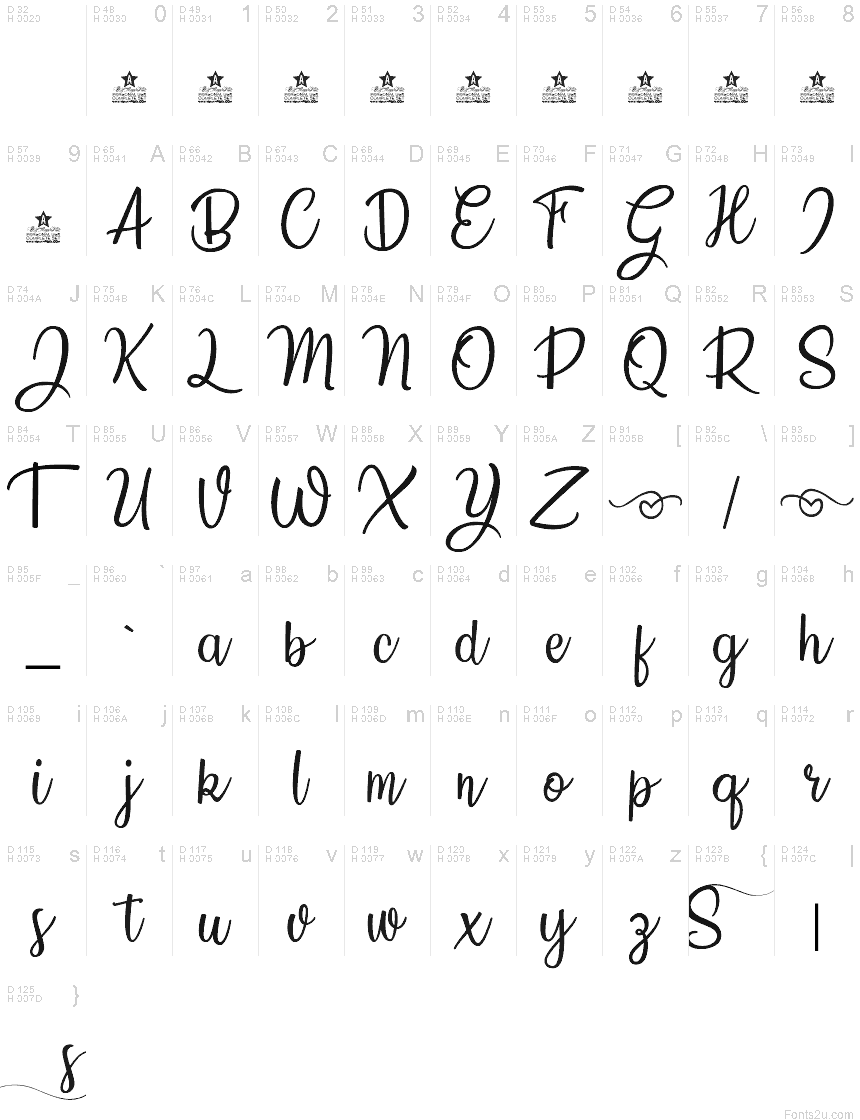
Sunflowers
Sunflowers by Billy Argel is a free calligraphic script built from sweeping strokes, smooth changes between broad curves and fine connecting lines, and a slightly informal handwritten finish. Tall loops give the lettering an assured signature quality.
Brands aimed at weddings, beauty, and boutique food markets can use its graceful movement for invitations, packaging, and social graphics, because the loose sweep feels warm and celebratory. On cosmetics labels or florist branding, the extended curves can echo ribbons and flower stems, turning a name into an illustrated emblem rather than a neutral label for a more personal and recognizable product identity.